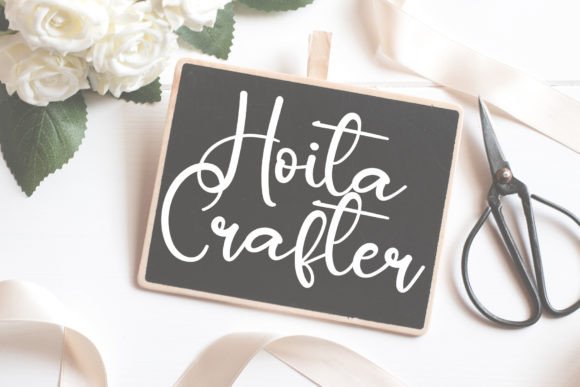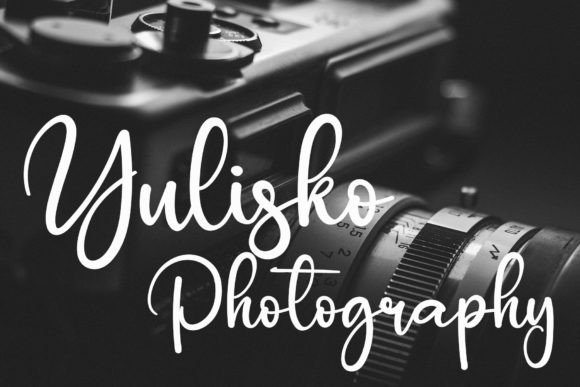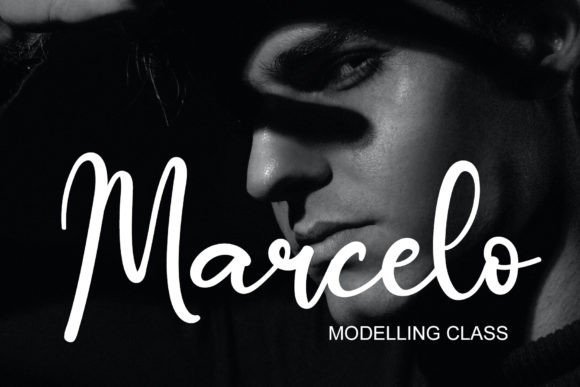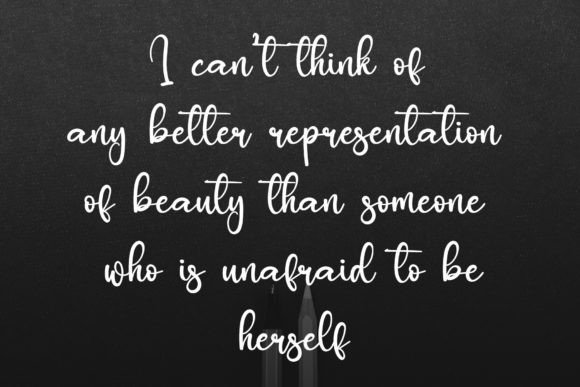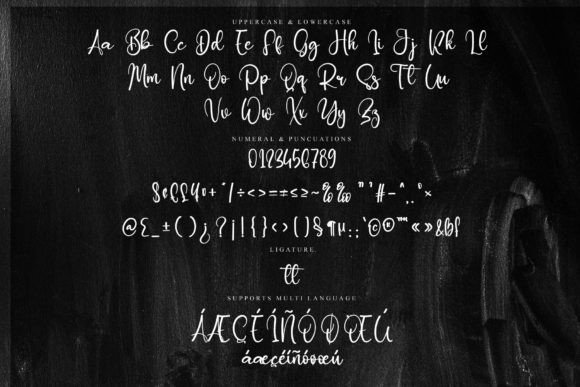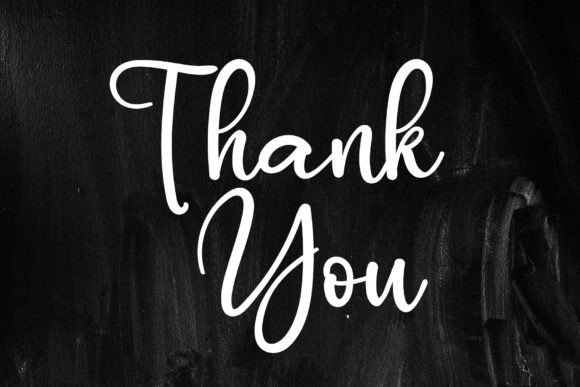
Introduction to Malice Font
Have you ever found yourself staring at a blank canvas, struggling to bring your creative vision to life? You’ve got a clear idea, but the words just won’t seem to fit. That’s when the perfect font can make all the difference. Enter the Malice Font, a stylish and dainty script font that’s sure to elevate your high-quality design projects.
With its delicate lines and elegant flair, the Malice Font is the perfect design resource for any creative project. Whether you’re working on a logo, branding, label, or photography project, this beautiful script font is sure to add a touch of sophistication and charm. And with its transparent background, you can easily incorporate it into any design without worrying about visual clutter.
As a valuable addition to any designer’s toolkit, the Malice Font offers unparalleled flexibility and versatility. Its PUA encoded design means you can access all of the glyphs and swashes with ease, making it a must-have for any creative project. And the best part? It’s available for free download, making it an absolute game-changer for designers on a budget.
Key Features of Malice Font
- High-quality, bold and edgy design ideal for creative projects.
- Comes with a transparent background, making it easy to customize and integrate into various designs.
- Designed with a high resolution (300 DPI) for crisp and clear display on various mediums, including print and digital.
- Perfect for designers looking for a unique and striking font to elevate their creative project.
Honest Review: Malice Font
As a designer, I’m always on the lookout for high-quality design resources that can elevate my creative projects. The Malice Font has caught my attention, and I’m excited to share my honest review.
- ✨ Unique and bold design aesthetic that can add a touch of edginess to any project
- ✨ Transparent background, allowing for seamless integration with any design element
However, I do have a few reservations:
- ⚠️ Limited character set, which might restrict its use in certain projects
- ⚠️ Not all glyphs are available for download, which can be frustrating for designers who need specific characters
Overall, the Malice Font has potential as a design resource, but it’s essential to consider its limitations before incorporating it into your creative project. If you’re looking for a bold and unique font, it’s worth checking out, but be aware of its potential drawbacks.
Introduction to Malice Font
Malice Font is a high-quality, free design resource ideal for creative projects. Its transparent background makes it easy to incorporate into various design elements.
Tips for Getting the Most Out of Malice Font
To maximize the effectiveness of Malice Font, consider the following tips:
- Combine Malice Font with other high-quality fonts for a unique look.
- Use Malice Font in conjunction with a transparent background for a clean and modern design.
Common Use Cases for Malice Font
Malice Font is suitable for a variety of creative projects, including:
- Branding and logo design.
- Marketing materials, such as brochures and flyers.
- Web design and development.
Alternatives to Malice Font
Comparison to Malice Font: Great Vibes Font has a more refined and elegant feel compared to Malice Font’s edgy and bold style.
The Alex Brush Font is a beautiful, handwritten font that is ideal for creative projects that require a personal and emotive touch. It features a transparent background, making it easy to use on various backgrounds. When to use: blog posts, social media graphics, or any project where you want to convey a sense of warmth and approachability.
Comparison to Malice Font: Alex Brush Font has a more personal and emotive feel compared to Malice Font’s edgy and bold style.